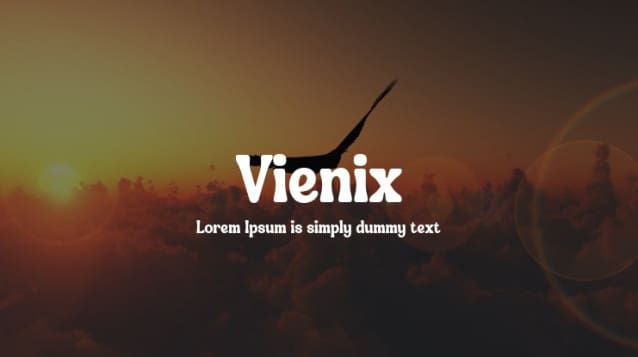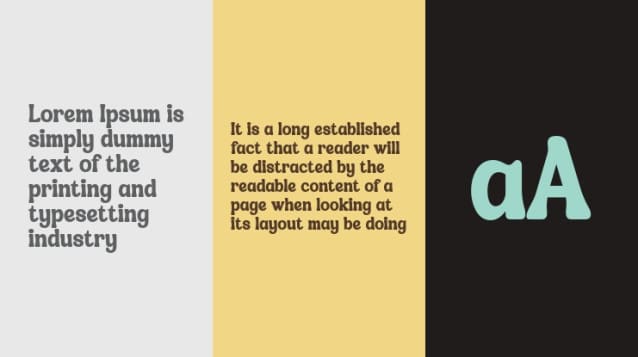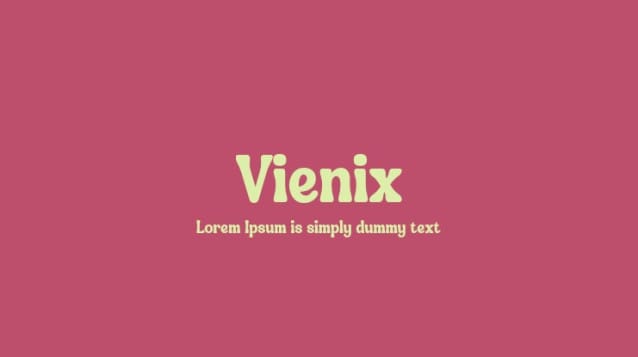
Vienix Font, This font is perfect for stickers, retro projects, craft projects, shirts, svg designs, procreate designs, branding, blogs, logos, invitations and more!
Vienix Font
| Classification: | Display Fonts, Retro / Vintage Fonts, Serif Fonts |